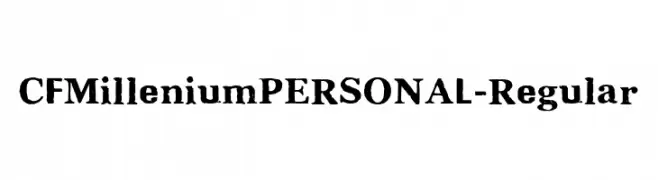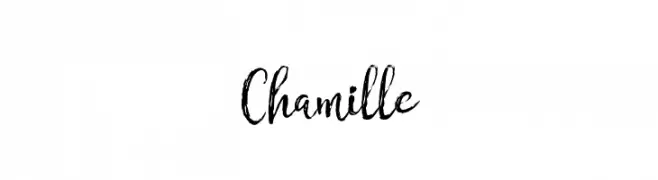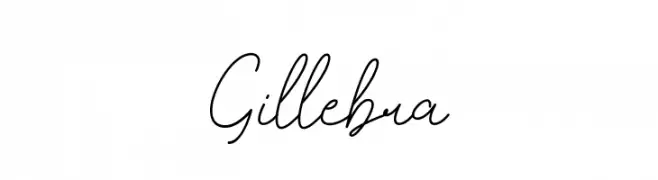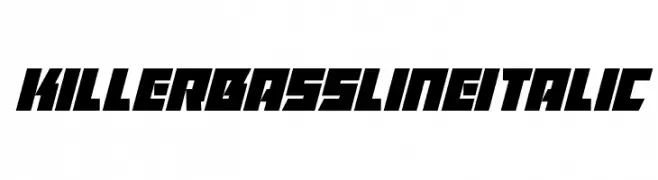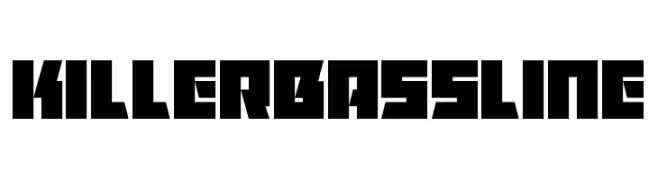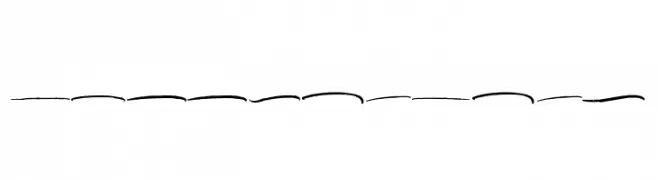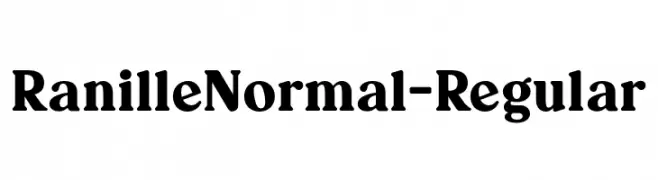
A lively, brush-style font with dynamic, handcrafted strokes.
A classic serif font with bold strokes and elegant curves.
An elegant, flowing script font with smooth, cursive letterforms.
A bold, distressed font with a vintage, hand-crafted appearance.
A bold, expressive handwritten font with dynamic strokes and artistic flair.
A bold, italicized font with a futuristic, angular design.
A bold, geometric font with sharp angles and a blocky design.
A playful and elegant handwritten font with fluid, cursive letterforms.
A bold, expressive script font with fluid, interconnected strokes and a handcrafted feel.
A decorative font with elegant swashes and calligraphic style.